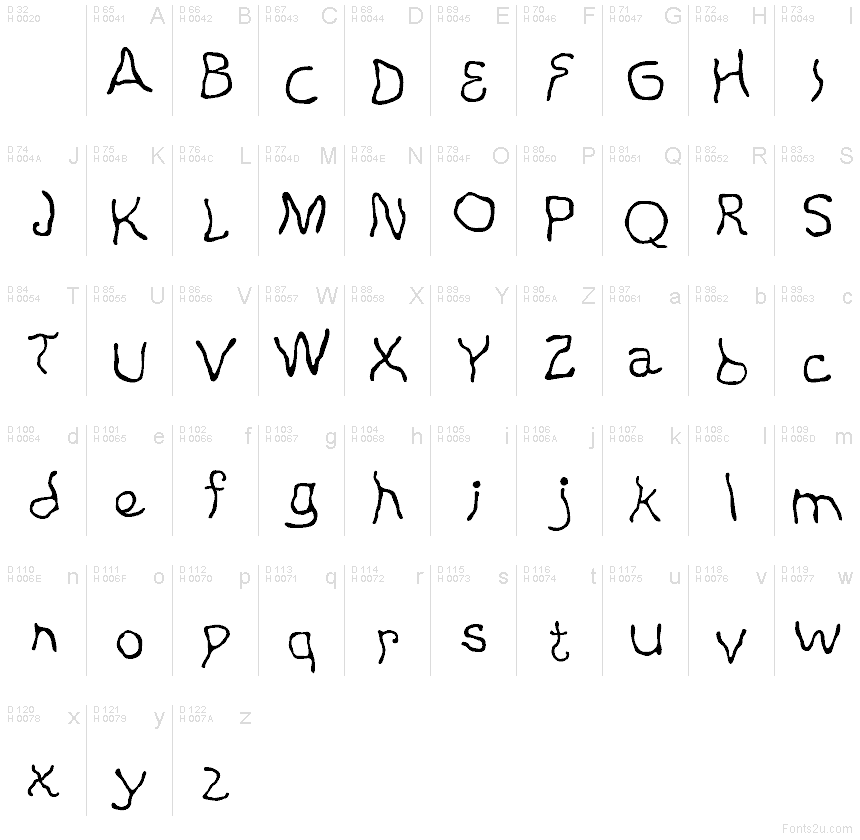
CS Molley Regular Demo
CS Molley font by Craft Supply Co. brings a distorted handwritten style to readers. This free font is meant for handwriting enthusiasts who appreciate a hand-drawn appearance in the irregular shape of their letters. The uneven baseline and inaccurate spacing also play an essential role, helping to contribute to the casual nature of this resource.
Free is always good and no one can say otherwise! With such versatility at your disposal, CS Molley can be downloaded and used in various graphic design projects like packaging, social media captions, magazines, t-shirts designs, etc. More visual use cases contain menu templates, handmade products tags/labels/signs that you should all stop typing right away!